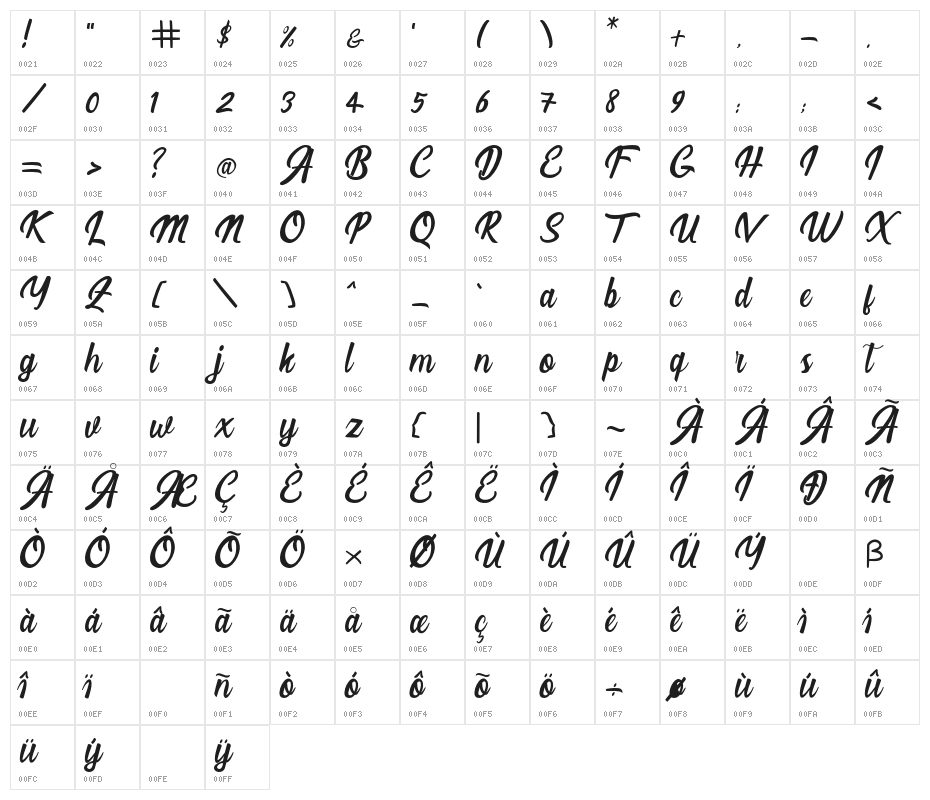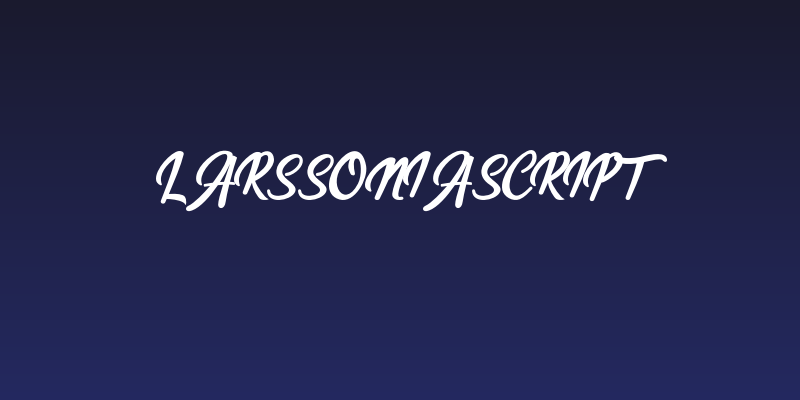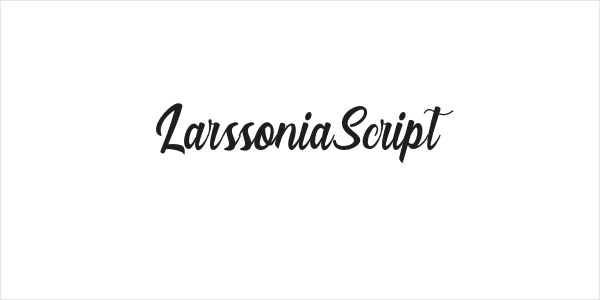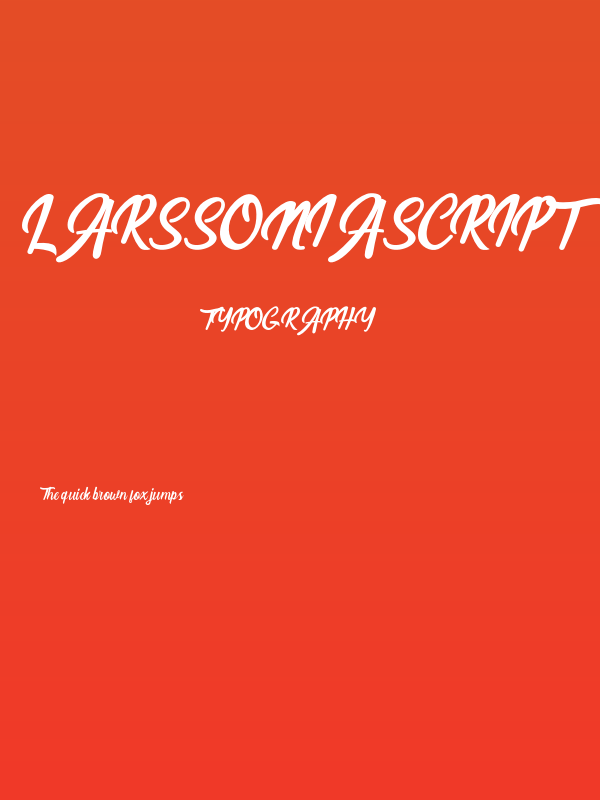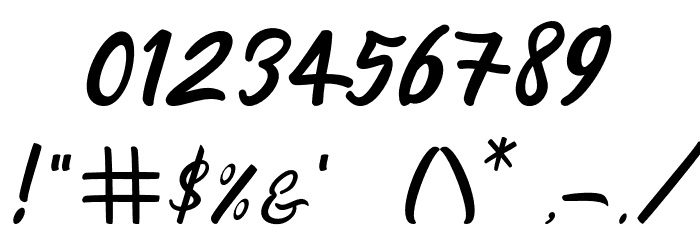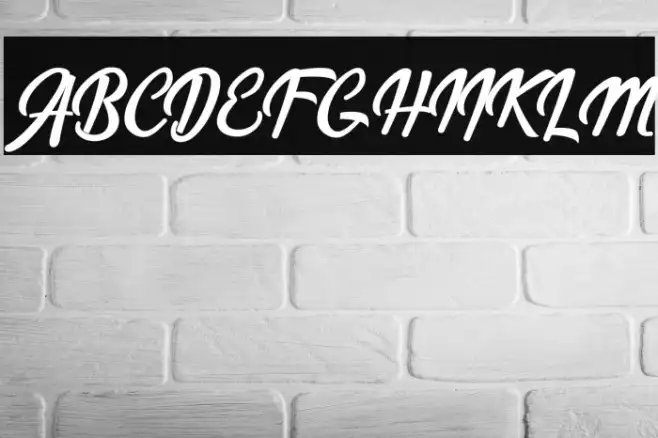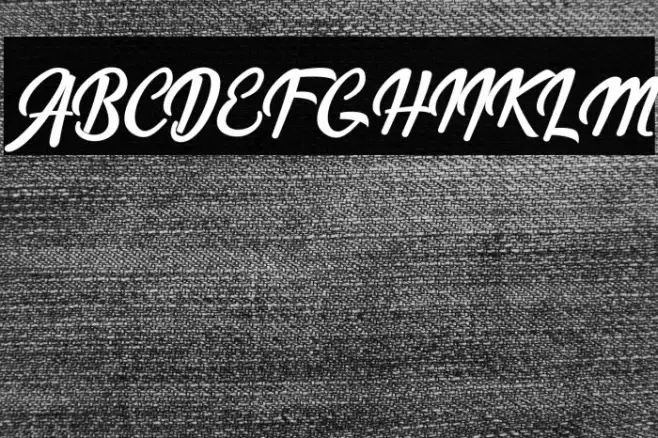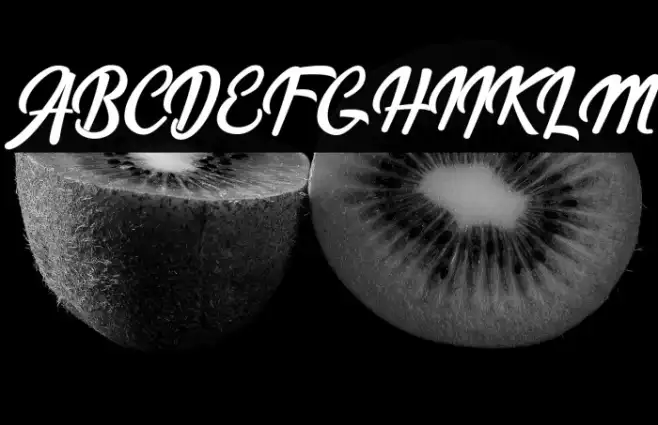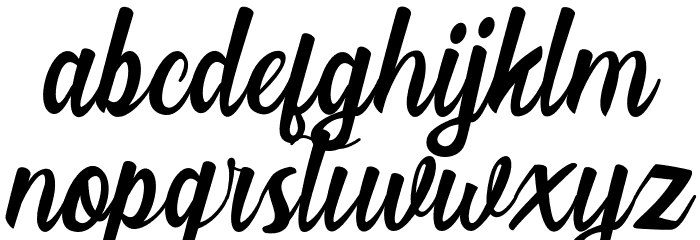
LarssoniaScript Font
LarssoniaScript Description
This font features a flowing, cursive style that exudes elegance and sophistication. The characters are interconnected, creating a seamless and fluid appearance. The uppercase letters are bold and prominent, while the lowercase letters maintain a consistent flow with gentle curves and loops. The numbers and special characters are designed to match the script style, ensuring a cohesive look across all text. The overall design is reminiscent of traditional calligraphy, making it suitable for projects that require a touch of class and refinement.
| Proposed Projects | Ideal for wedding invitations, elegant branding, greeting cards, and upscale packaging. |